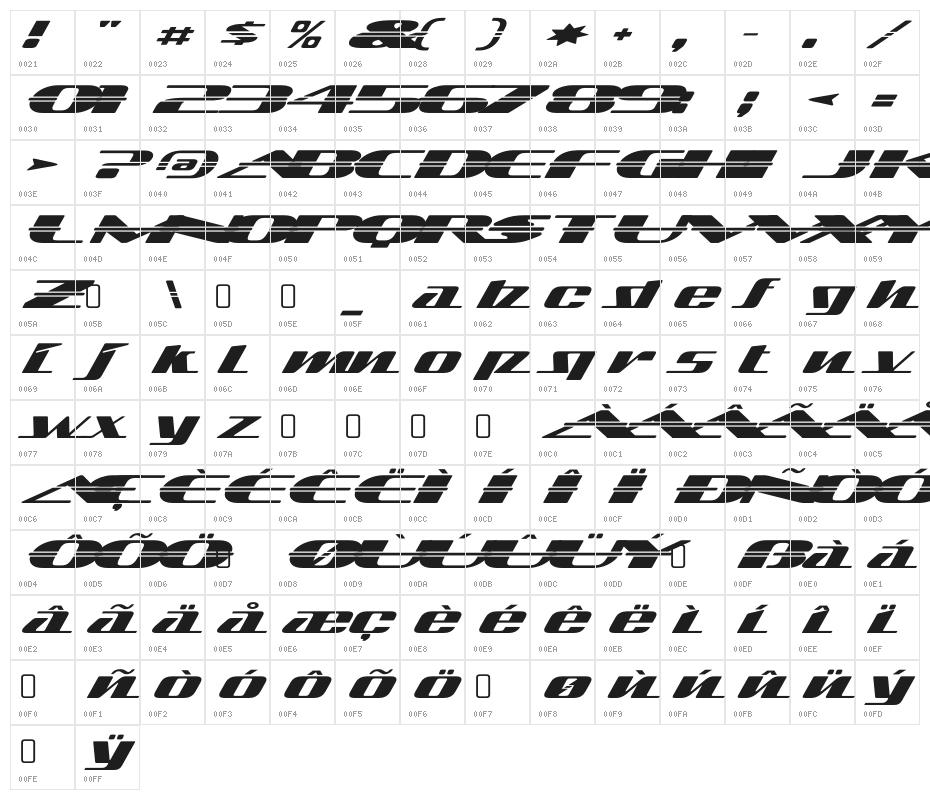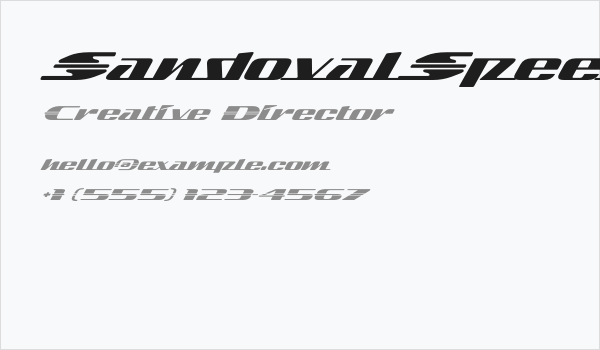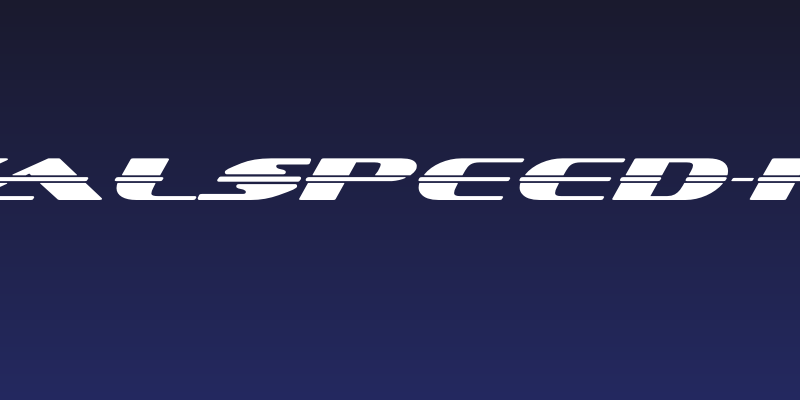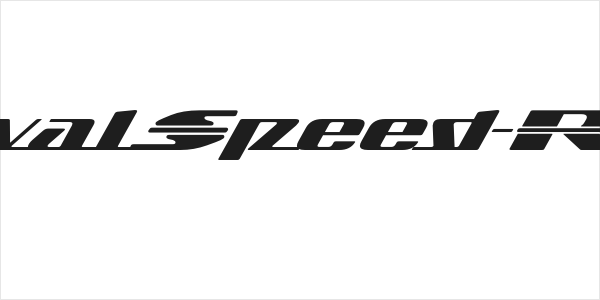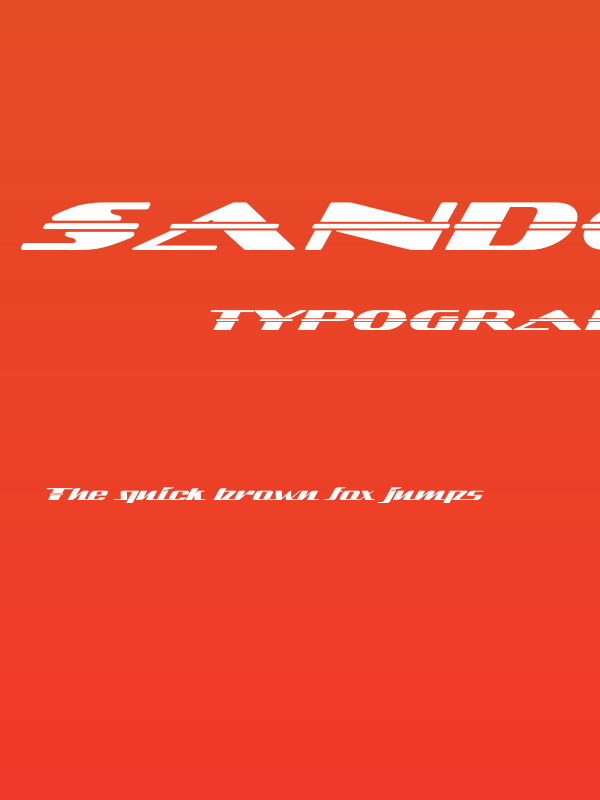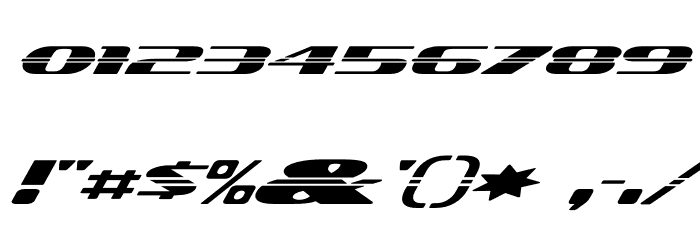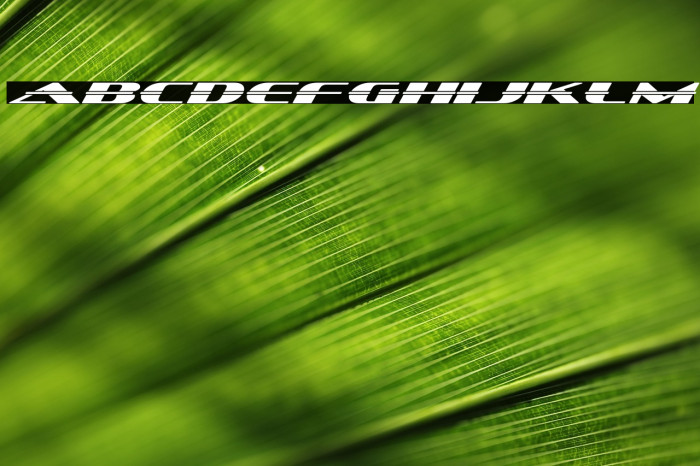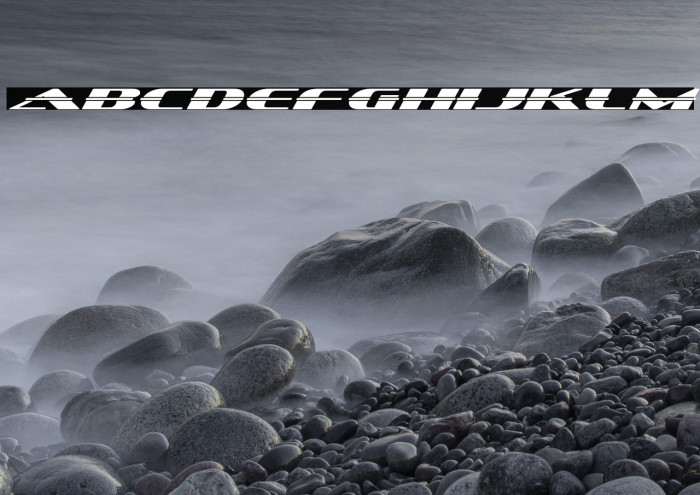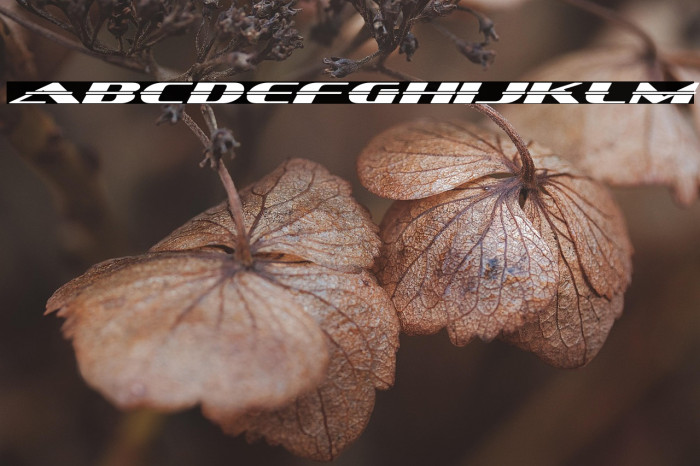
SandovalSpeed-Regular Font
SandovalSpeed-Regular Description
This font exhibits a dynamic and modern style with a distinct slanted and italicized appearance. The characters are designed with sharp angles and a streamlined look, giving an impression of speed and movement. The uppercase and lowercase letters maintain a consistent style, with bold strokes and a futuristic aesthetic. The numbers and special characters are crafted to match the overall theme, ensuring uniformity across all glyphs. This font is ideal for projects that require a sense of motion and energy, such as automotive branding or sports-related designs.
| Proposed Projects | Ideal for automotive branding, sports-related designs, and dynamic advertising campaigns. |